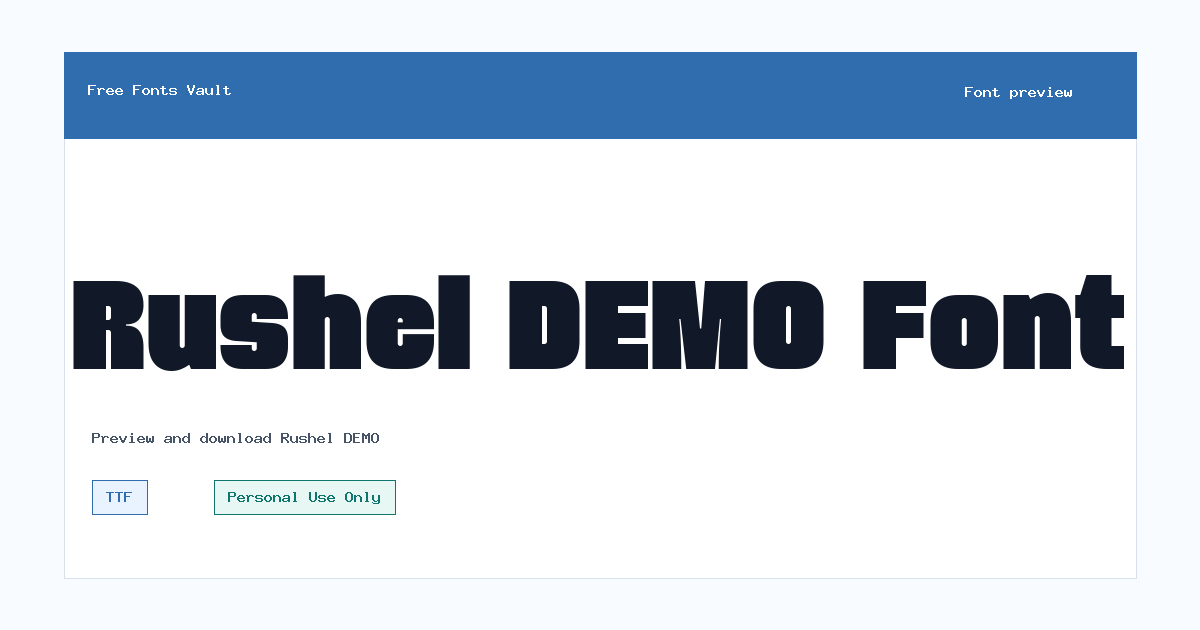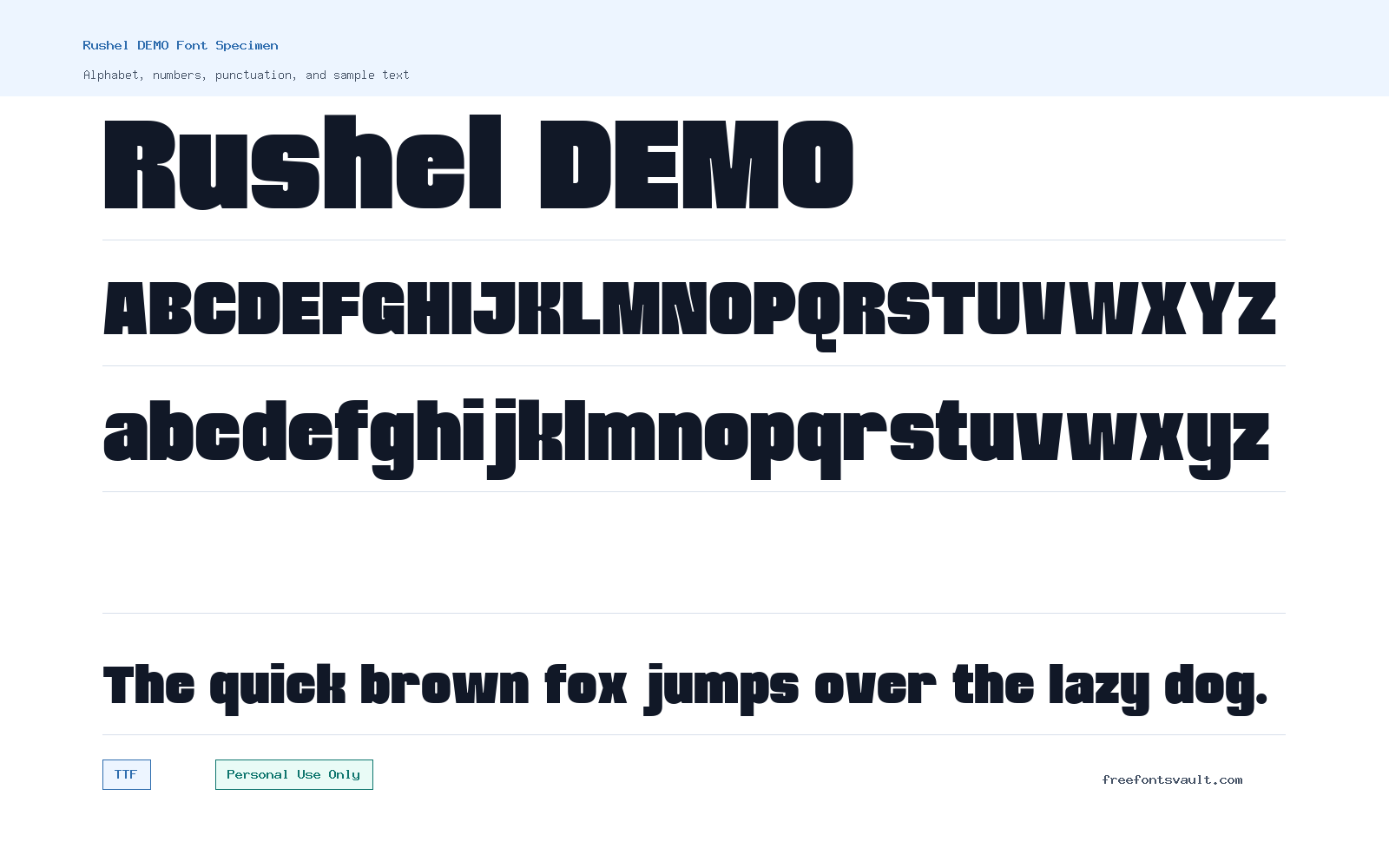
Rushel DEMO
- Designer Say Studio
Rushel DEMO font.
Rushel DEMO is a bold display sans serif font with a heavy, compact look. It is best suited to short text where you want strong visual impact, such as poster titles, logo drafts, packaging mockups, and social graphics. The font is marked for personal use only, so check the license before using it in paid or client work.
About Rushel DEMO Font
Rushel DEMO has a thick, blocky sans serif style with tight spacing and strong vertical weight. The letters feel sturdy and direct rather than delicate, which makes the font useful for words that need to stand out quickly. In preview, the uppercase letters carry the most force, while the lowercase keeps the same dense personality with rounded forms and narrow inner spaces. This is not a quiet body-text font; it works better when the message is short, clear, and given room to breathe.
Use Rushel DEMO for display settings where the word itself is the main visual element. It can work well for poster headings, music or streetwear-style mockups, bold logo explorations, product label concepts, thumbnails, and simple social media titles. Because the forms are heavy, avoid packing too many words into a small space. Try wider letter spacing for all-caps headlines, and test the font on both light and dark backgrounds to make sure the inner counters stay readable. The included font file is a TTF regular style, so it should be easy to test in most design apps that support TrueType fonts.
- Heavy display sans serif style with compact, high-impact letterforms
- Strong headline presence for short words, titles, and logo mockups
- Poster headlines and event graphics
- Logo concepts and brand mockups
- Streetwear, music, gaming, or bold product visuals
- YouTube thumbnails and social media title cards
- Packaging mockups and short label text
- Large hero text in personal web or app mockups
Keep Rushel DEMO for short display text rather than paragraphs. It has a very heavy build, so readability can drop at small sizes or in long sentences. Test your exact wording in the preview before downloading, especially if you need numbers, accented characters, symbols, or extended punctuation, because the inspected font file appears to focus on basic Latin letters with only minimal punctuation. For pairing, use a plain neutral sans serif for body text so Rushel DEMO can stay focused on titles and key words.
What kind of font is Rushel DEMO?
Rushel DEMO is a heavy display sans serif font. It is built for bold titles, short logo-style text, posters, and mockups rather than long reading text.
Does Rushel DEMO work for paragraphs?
It is not recommended for paragraphs. The letters are thick and compact, which gives strong impact in headlines but can feel crowded in long text.